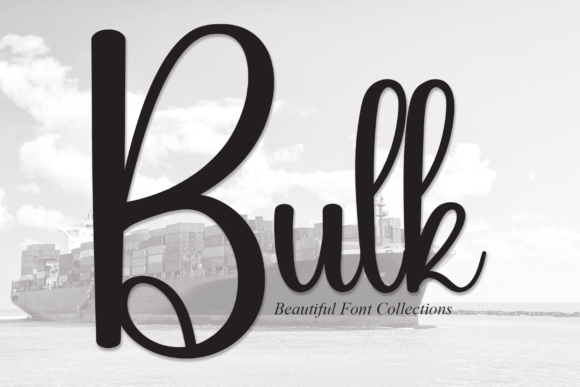
Feast your eyes on Bulk Font, an exceptional creation by the visionary William Jhordy, where artistry meets elegance. This exquisite font family, belonging to the script genre, is not just a collection of letters, but a symphony of visual delight. Prepare to be captivated by its enchanting charm, perfect for adding a touch of whimsy to your creative endeavors.
Transport yourself to the world of Bulk Font, where each character dances across the page with a vibrant personality. Its graceful lines, playful curves, and delightful flourishes evoke a sense of joy and wonder. Experience the magic as your designs come to life, infused with a unique and captivating charm.
Unleash your creativity with Bulk Font and discover a world of endless possibilities. Its versatility knows no bounds, effortlessly adapting to a multitude of design projects. Whether you're crafting wedding invitations, greeting cards, posters, or social media graphics, Bulk Font will add a touch of elegance and sophistication that is sure to leave a lasting impression.
Immerse yourself in a world where words become works of art with Bulk Font. Its enchanting curves and delicate details transform ordinary text into captivating statements. Elevate your designs to new heights, capturing the attention of your audience with a font that speaks volumes. Embrace the beauty of Bulk Font and embark on a creative journey that will leave you inspired and amazed.